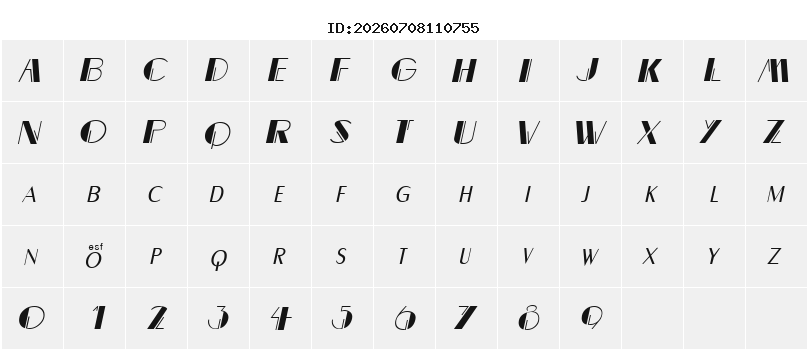
Dalith Preview
• Font Name: Dalith
• Font Style: Oblique
• Font ID: Macromedia Fontographer 4.1 Dalith Oblique
• Full Font Name: Dalith Oblique
• Version: Macromedia Fontographer 4.1 7/8/96
• PostScript Name: DalithOblique
• Character Count: 200
About Dalith.ttf
Dalith.ttf is a modern, elegant sans-serif font designed for ultimate readability and visual harmony. Perfect for branding, headlines, web design, and print materials.